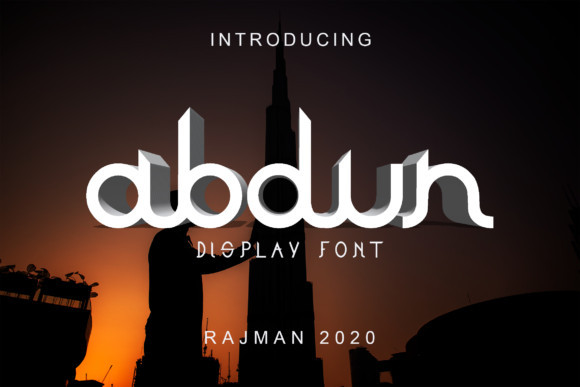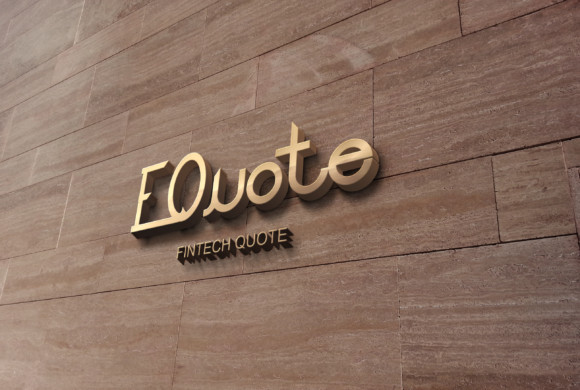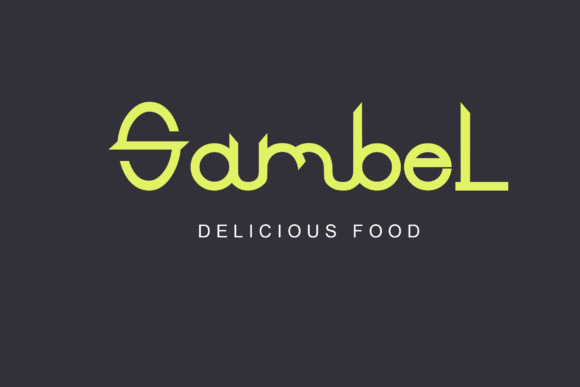
Abdun Font
Abdun is a futuristic display font with a unique style. It features sharp edges and dynamic ligatures, and will turn any design idea into an eye-catcher!